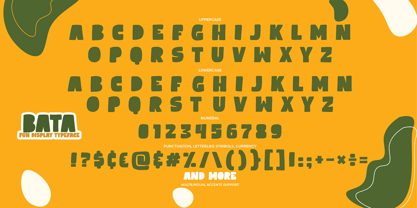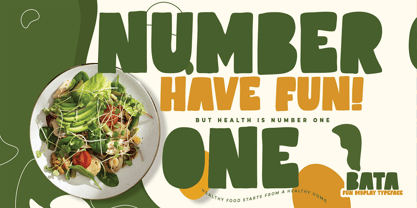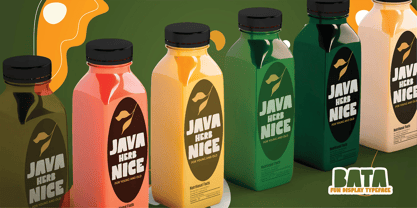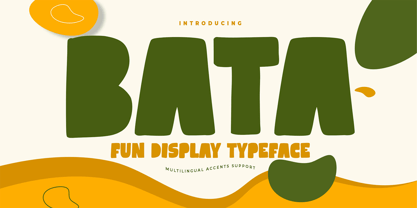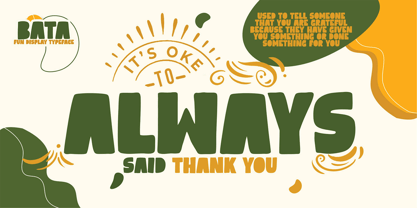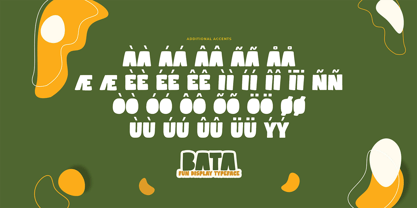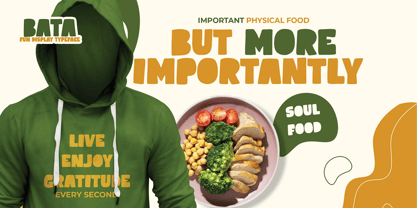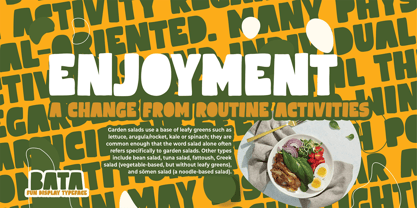
Bata
by Almarkha Type
The Bata Font Family was designed by Abdul Malik Wisnu and published by Almarkha Type. Bata contains 1 styles. More about this family
Introducing Bata, a new display font that combines a fun, natural style with an authentic, classy touch. This versatile font is ideal for a variety of creative projects, including watermarks on photography, logos, branding, invitations, advertisements, product designs, stationery, wedding designs, labels, product packaging, and special events. Bata is perfect for any design project, whether it's an invitation, logo, book cover, craft, or other design purposes. Enhance your photos, create overlays, design signs, window art, scrapbooking, tags, and much more with this stylish font!
Designers: Abdul Malik Wisnu
Current Foundry: Almarkha Type